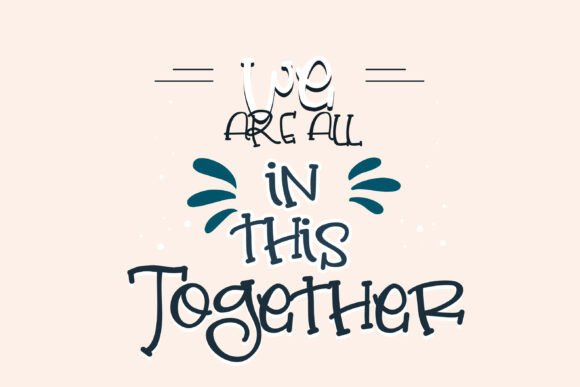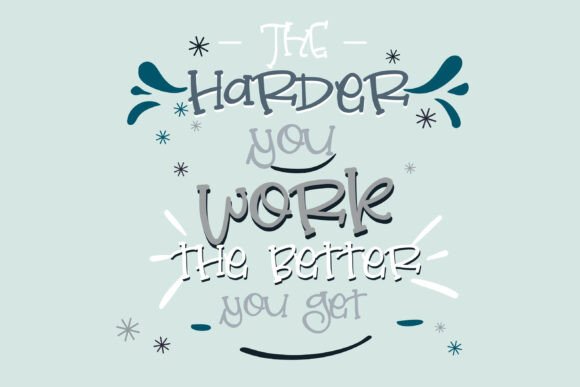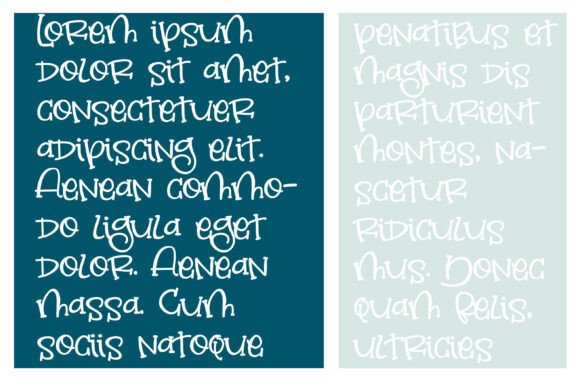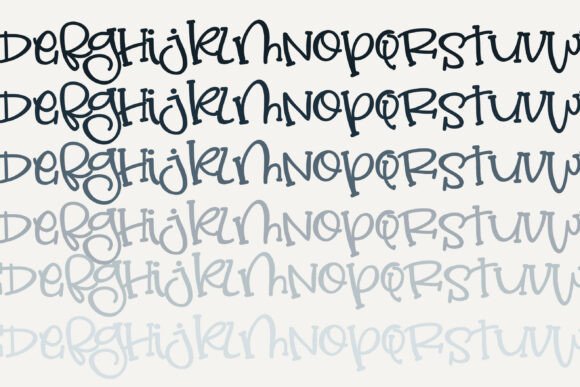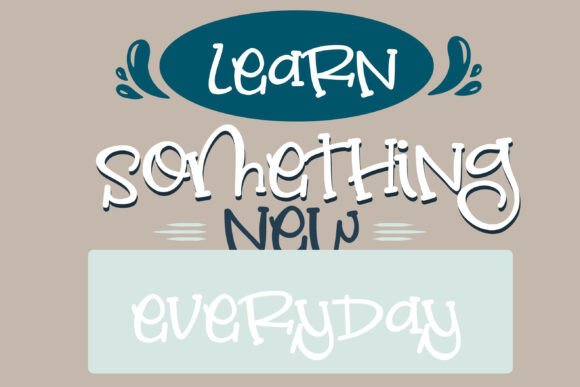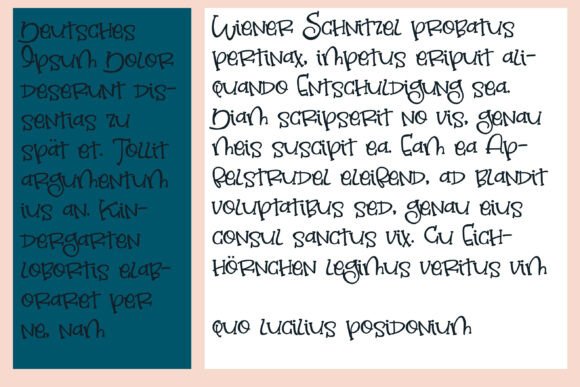
Flingading Font: Unleash Your Creativity with this Playful Hand-Crafted Script Font
Are you tired of using the same old fonts for your designs and crafts? Look no further than Flingading, a hand-crafted script font that’s bursting with creative energy and fun curves. With its bouncy strokes and bold character, Flingading is perfect for adding a spark of personality to your playful logos, social media posts, DIY projects, and crafts.
The Characteristics of Flingading Font
Flingading is a unique and eye-catching font that’s been carefully crafted to bring a sense of fun and playfulness to your designs. Its key characteristics include:
- Bouncy strokes: Flingading’s strokes are full of energy and movement, giving your text a lively and dynamic feel.
- Bold character: This font has a bold and confident personality that’s perfect for making a statement.
- Hand-crafted feel: Flingading has a distinctly hand-crafted feel that’s perfect for adding a touch of personality to your designs.
- Playful curves: The font’s curves are playful and whimsical, making it perfect for designs that need a bit of flair.
Uses for Flingading Font
Flingading is a versatile font that can be used in a wide range of applications, including:
- Playful logos: Flingading is perfect for creating fun and eye-catching logos that showcase your brand’s personality.
- Social media: Use Flingading to add a touch of personality to your social media posts and make them stand out from the crowd.
- DIY projects: Flingading is a great choice for DIY projects, such as crafting, scrapbooking, and party planning.
- Crafts: Whether you’re making cards, gift tags, or other handmade crafts, Flingading is a great choice for adding a personal touch.
Why Choose Flingading Font?
So why choose Flingading over other fonts? Here are just a few reasons:
- Unique personality: Flingading has a unique and playful personality that’s sure to make your designs stand out.
- Easy to read: Despite its playful feel, Flingading is easy to read and can be used for both short and long pieces of text.
- Versatile: Flingading can be used in a wide range of applications, from logos and social media posts to DIY projects and crafts.
- High-quality: Flingading is a high-quality font that’s been carefully crafted to ensure that it looks great in any design.
Tips for Using Flingading Font
Here are a few tips for getting the most out of Flingading:
- Use it sparingly: While Flingading is a fun and playful font, it can be overwhelming if used too much. Use it sparingly to add a touch of personality to your designs.
- Experiment with colors: Flingading looks great in a wide range of colors, so don’t be afraid to experiment and find the perfect color for your design.
- Pair it with other fonts: Flingading can be paired with other fonts to create a unique and eye-catching design. Try pairing it with a bold sans-serif font for a fun and modern look.
Flingading is a unique and playful hand-crafted script font that’s perfect for adding a spark of personality to your designs and crafts. With its bouncy strokes, bold character, and playful curves, Flingading is sure to make your designs stand out from the crowd. Whether you’re creating logos, social media posts, DIY projects, or crafts, Flingading is a great choice for anyone looking to add a touch of fun and personality to their work.
So why not give Flingading a try? With its versatility, high-quality design, and unique personality, it’s sure to become a favorite in your design toolkit.